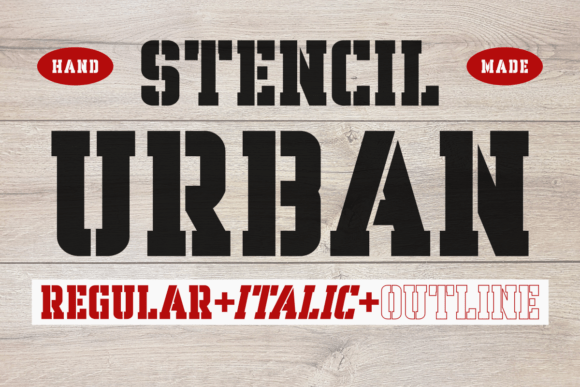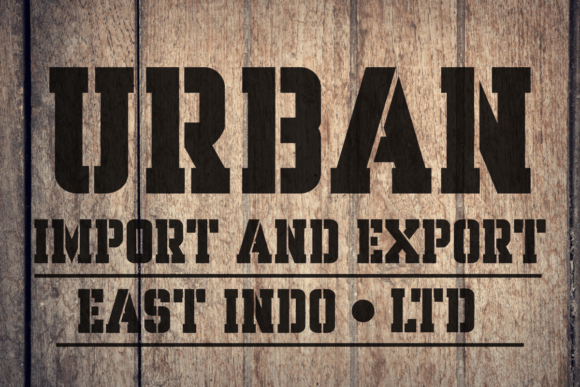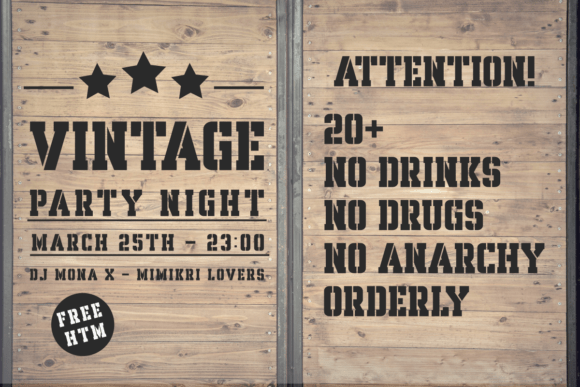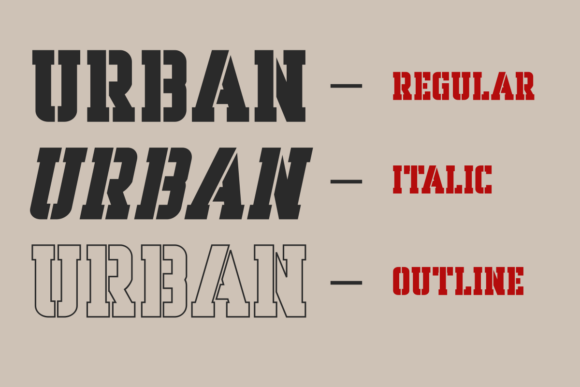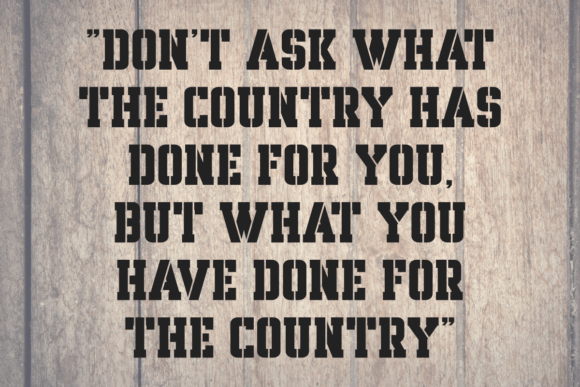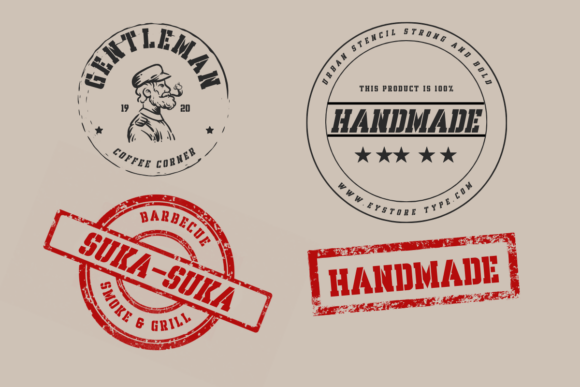
Stencil Urban Font
Stencil Urban is a font with a slab serif stencil style, there are also variations of the font for italic and outline styles, suitable for your work to make it charming and cool, stencil urban can be used for headlines, t-shirts, hoodies, logos, brands and various other works of yours.